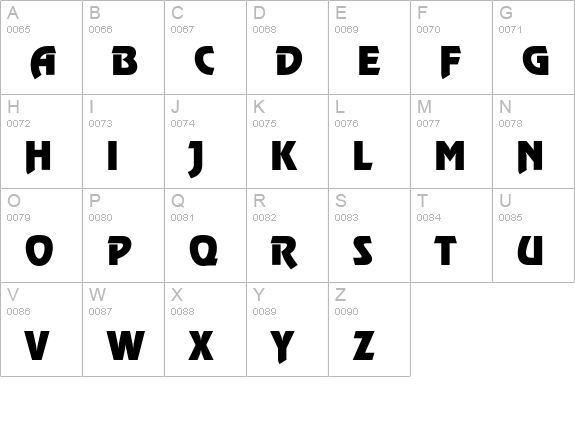
Ragtime-ExtraBold is an extra-heavy, attention-grabbing variant in the Ragtime typeface family \xE2\x80\x94 well suited to high-impact headlines, posters, and bold branding.
Introducing Ragtime-ExtraBold, a font that exudes confidence and boldness with every letter. This font is the epitome of strength and power, making it perfect for headlines, titles, and logos that demand attention. Ragtime-ExtraBold features strong, thick lines that effortlessly command the viewer's attention, creating a sense of authority and presence. Its robust and sturdy design adds a touch of sophistication and professionalism to any project, while still maintaining a modern and contemporary feel. With its wide letterforms and attention-grabbing curves, Ragtime-ExtraBold is capable of conveying both elegance and strength in equal measure. It strikes the perfect balance between classic and contemporary, making it a versatile choice for a wide range of design applications. What makes Ragtime-ExtraBold even more appealing is that it is freely available to download at FontsMarket.com. This means that you can easily access this exceptional font without any cost, allowing you to enhance your designs and make a lasting impression without breaking the bank. Whether you're working on a branding project, advertising campaign, or simply want to add a touch of boldness to your personal creations, Ragtime-ExtraBold is the ideal choice. Its free availability makes it even more accessible, ensuring that you have all the tools you need to create impactful designs that leave a lasting impression. Download Ragtime-ExtraBold today from FontsMarket.com and witness the transformative power of this remarkable font. Let Ragtime-ExtraBold elevate your designs to new heights, commanding attention and leaving a lasting impression on every viewer.